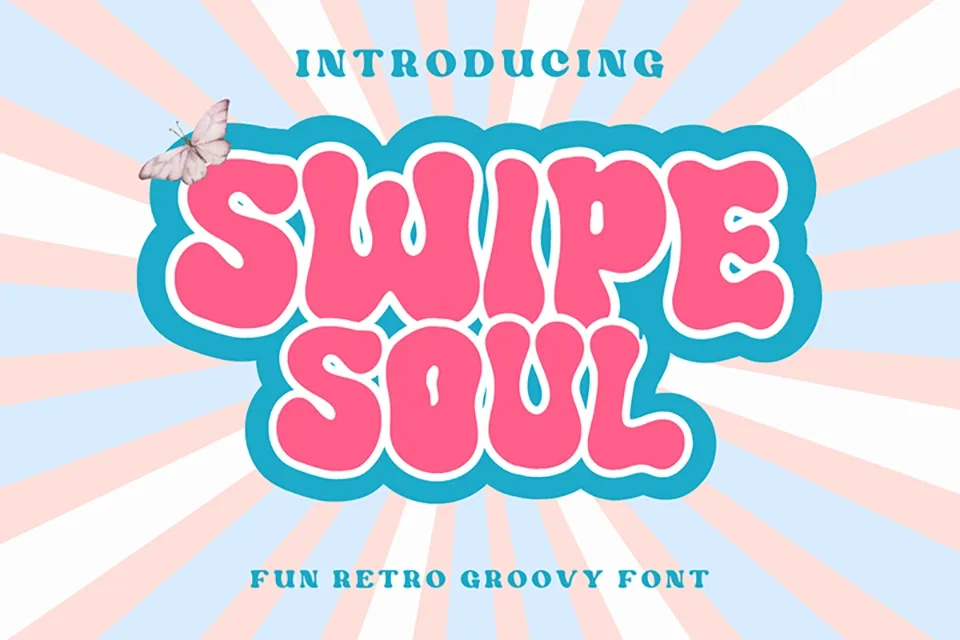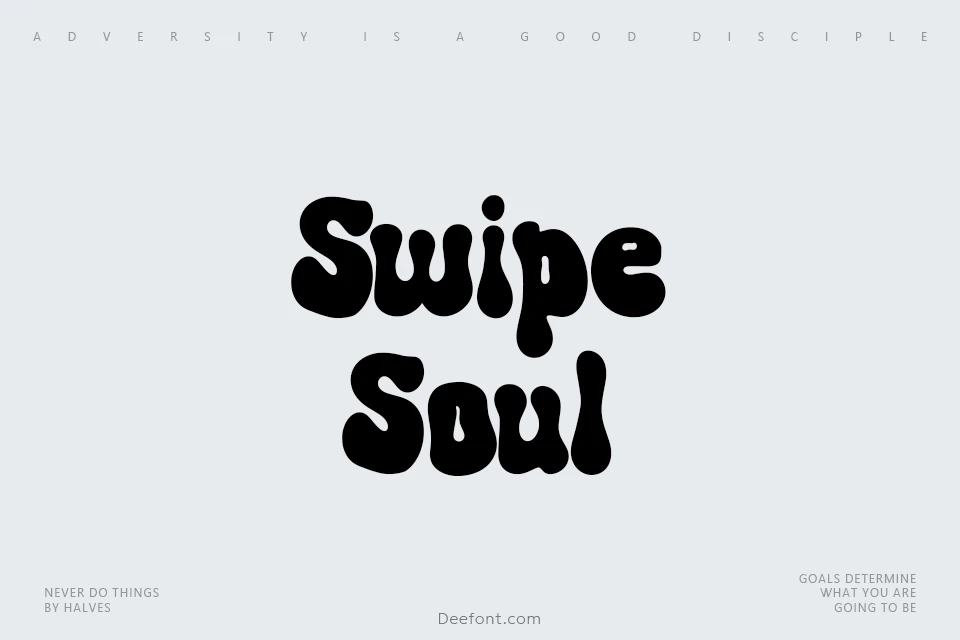
Swipe Soul Font
Swipe Soul Font is described as a fun, retro, and groovy typeface. Its defining features are the incredibly bold, rounded, and bubbly letterforms that evoke the playful aesthetics of the 1960s and 70s. The characters are thick and tightly packed, creating a substantial, eye-catching presence. With its soft edges and dynamic curves, Swipe Soul exudes a sense of carefree fun and vintage charm. This typeface is ideal for projects aiming for a distinct retro vibe, such as posters, nostalgic branding, funky logos, party invitations, and headlines that need a bold, groovy personality.